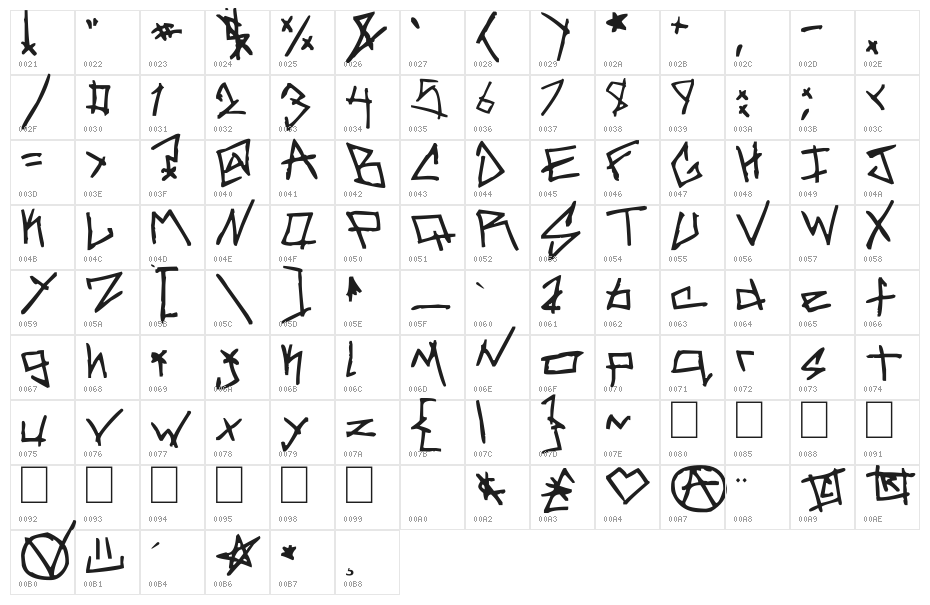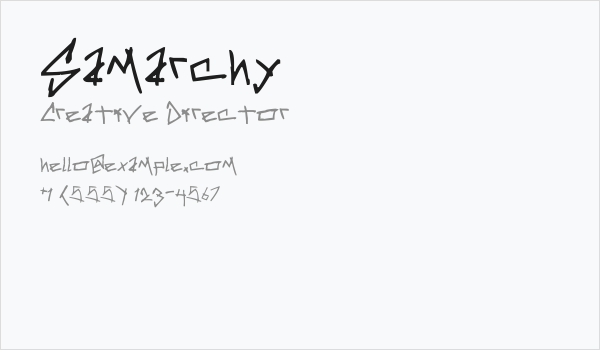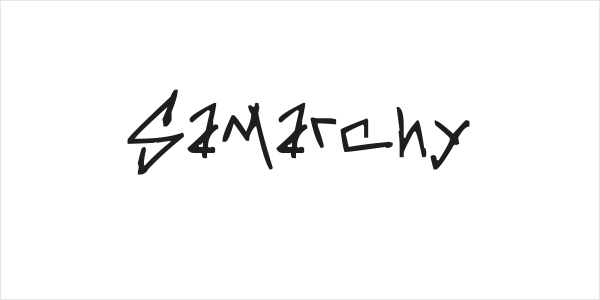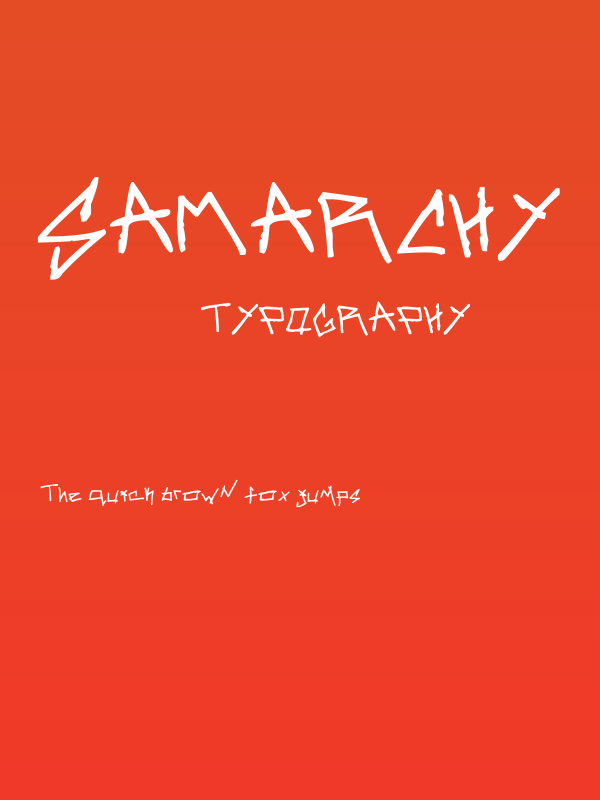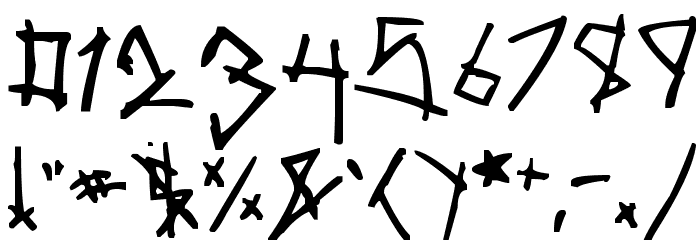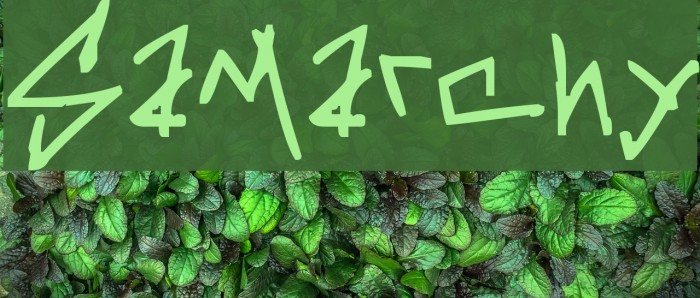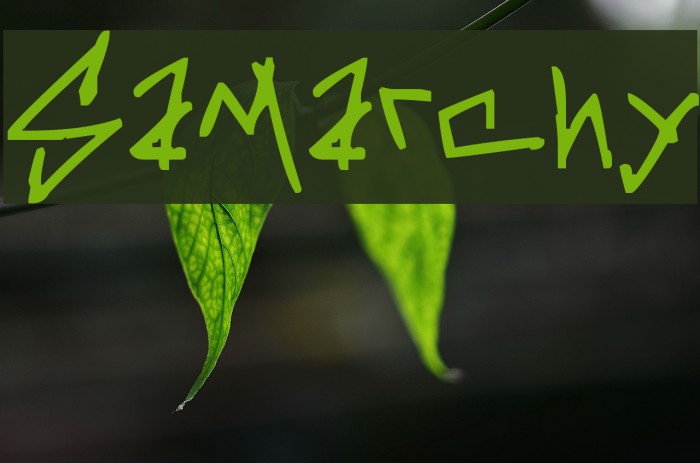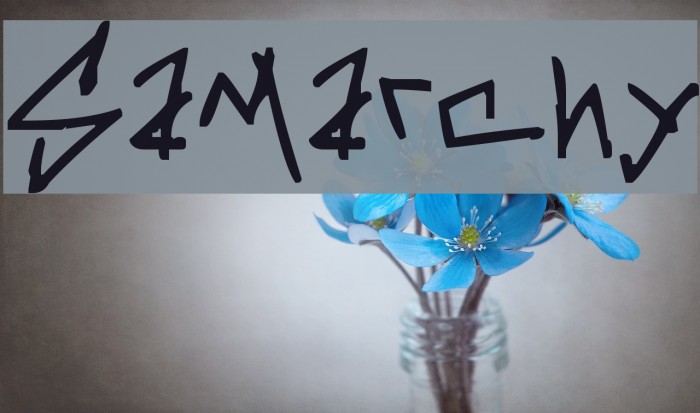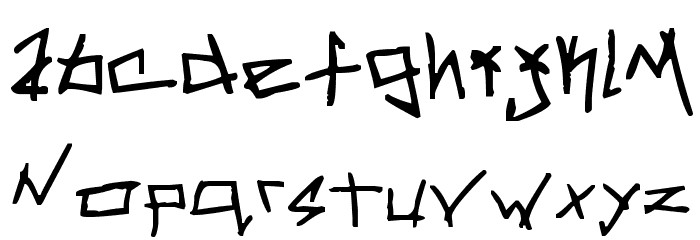
Samarchy Font
Samarchy Description
This font exhibits a bold, graffiti-inspired style with sharp, angular lines and a hand-drawn appearance. The uppercase and lowercase letters maintain a consistent edgy aesthetic, characterized by irregular strokes and a dynamic, energetic feel. Numbers and special characters follow the same design principles, adding to the font's cohesive look. The overall impression is one of rebelliousness and creativity, making it stand out with its unique, artistic flair.
| Overall Style | Modern, Urban |
| Use Case | Logos, Posters, Album Covers |
| Proposed Projects | Ideal for street art projects, edgy branding, music album covers, or urban-themed posters. |